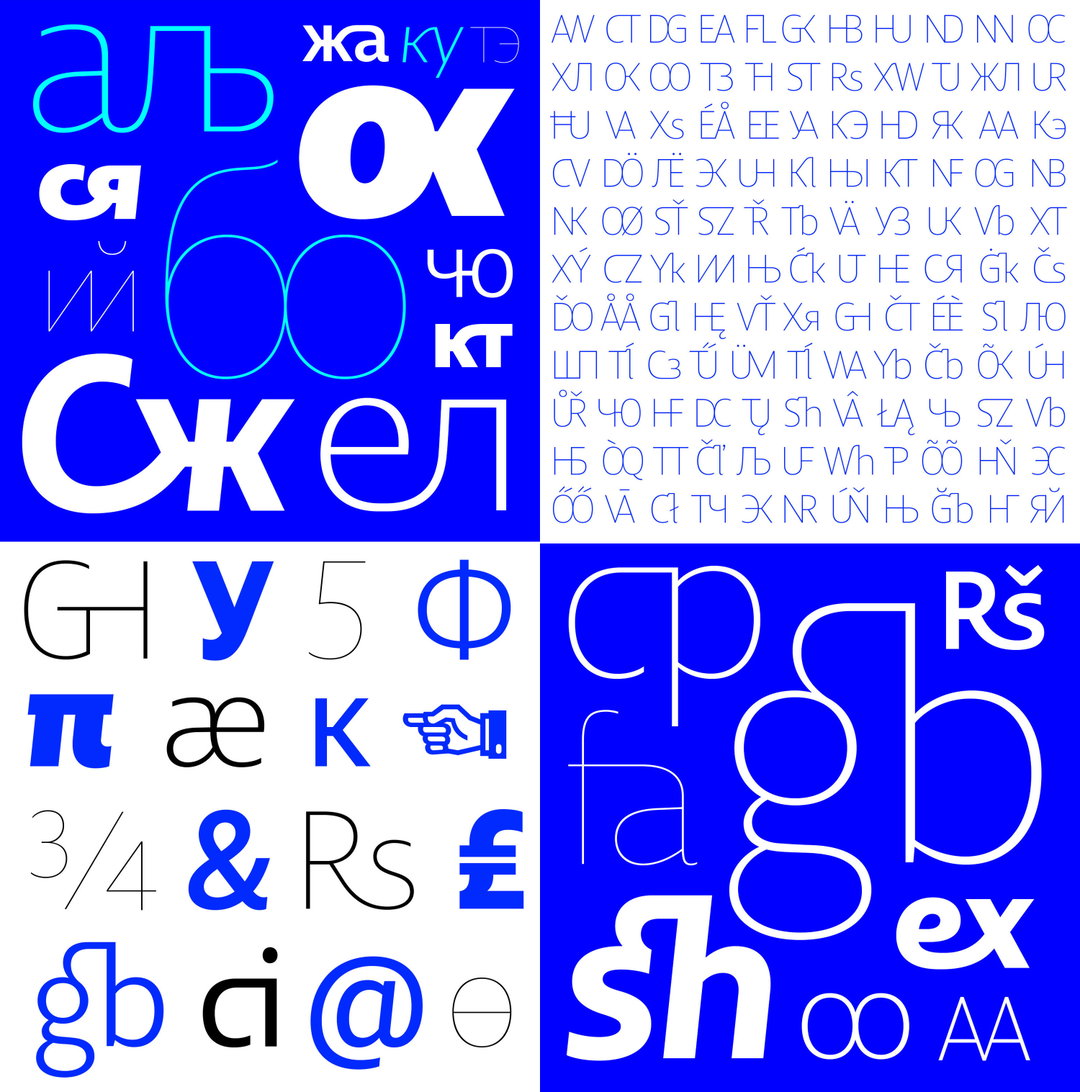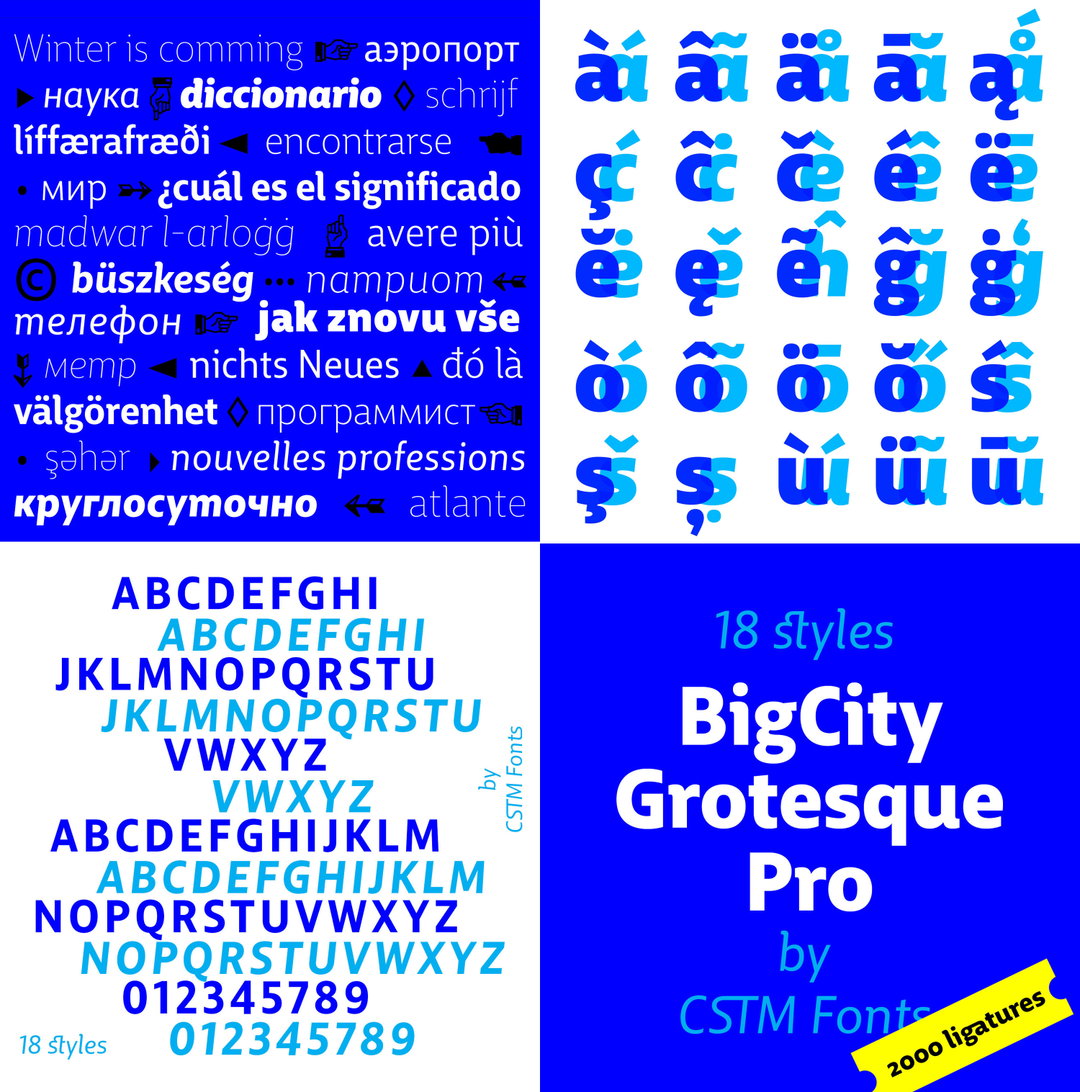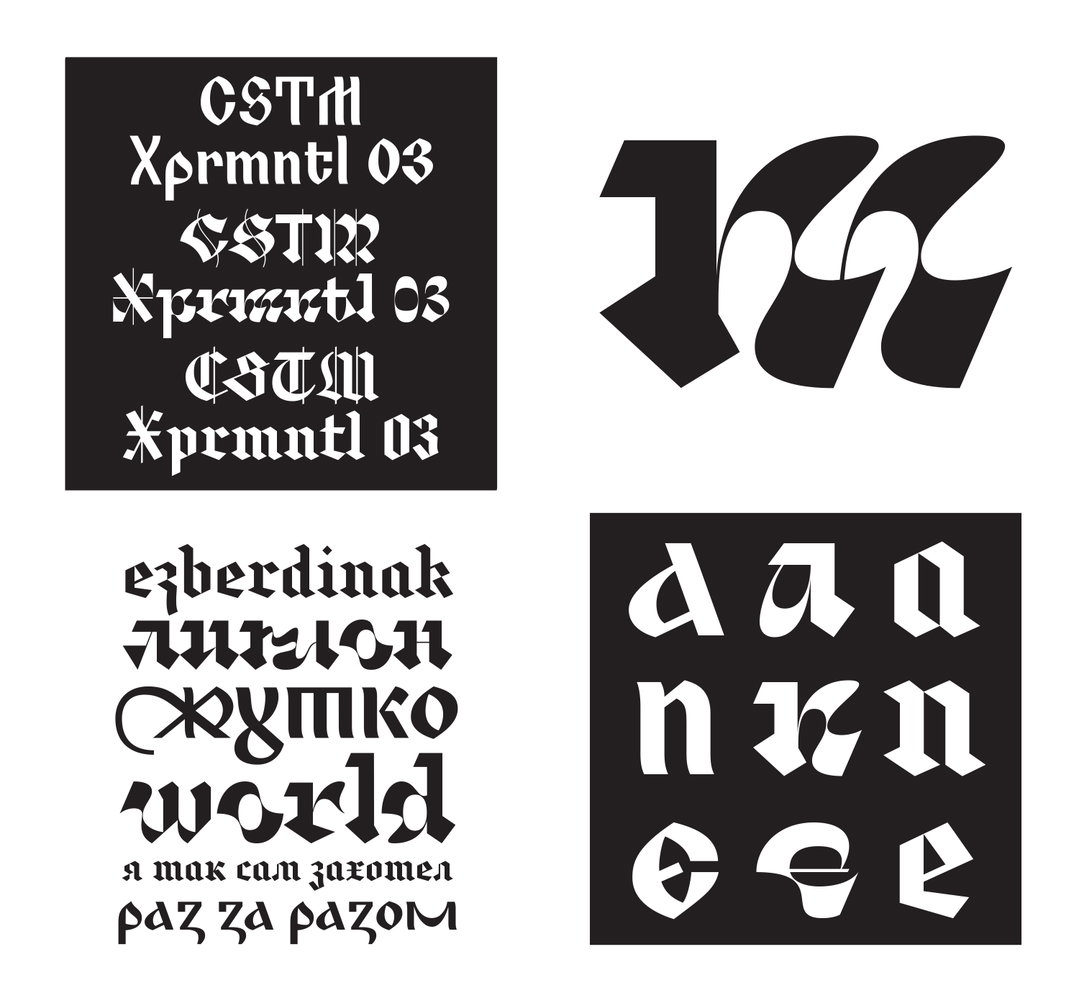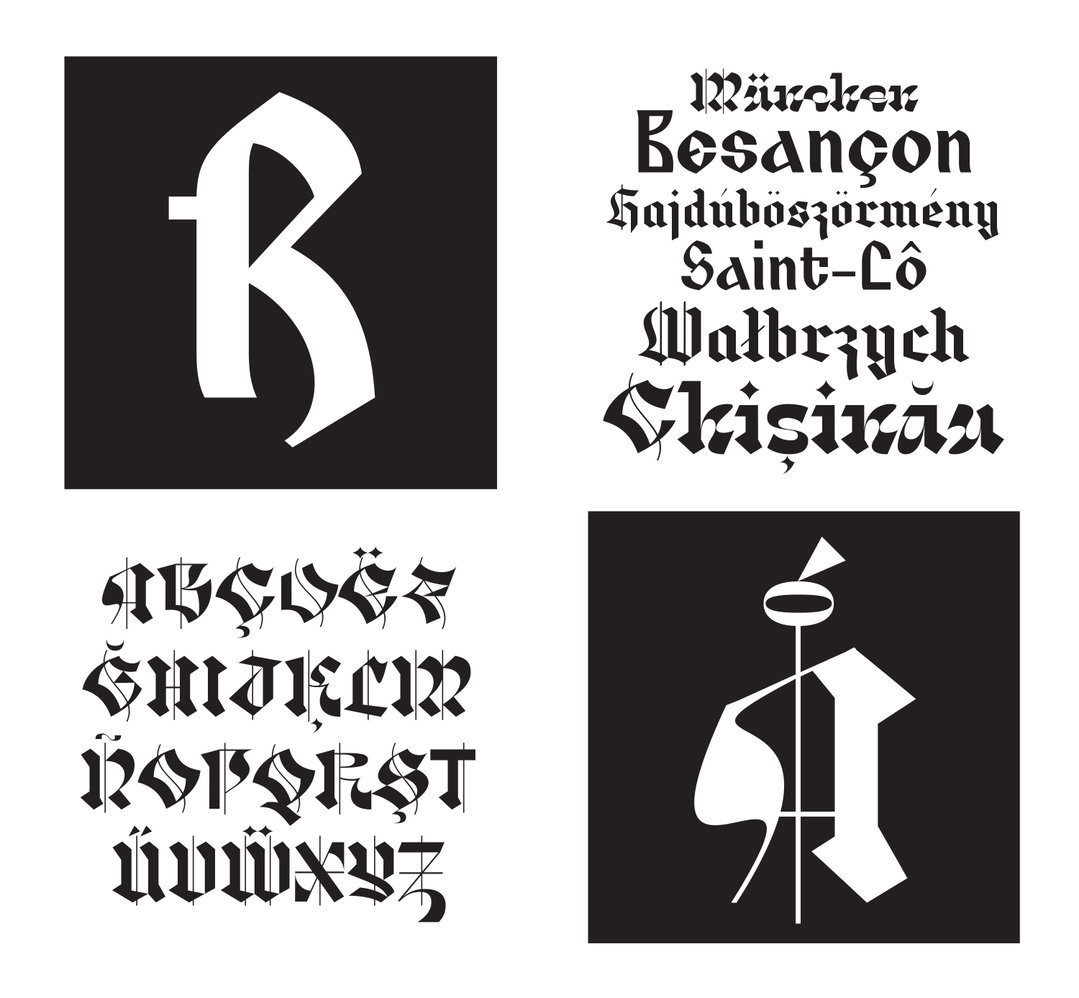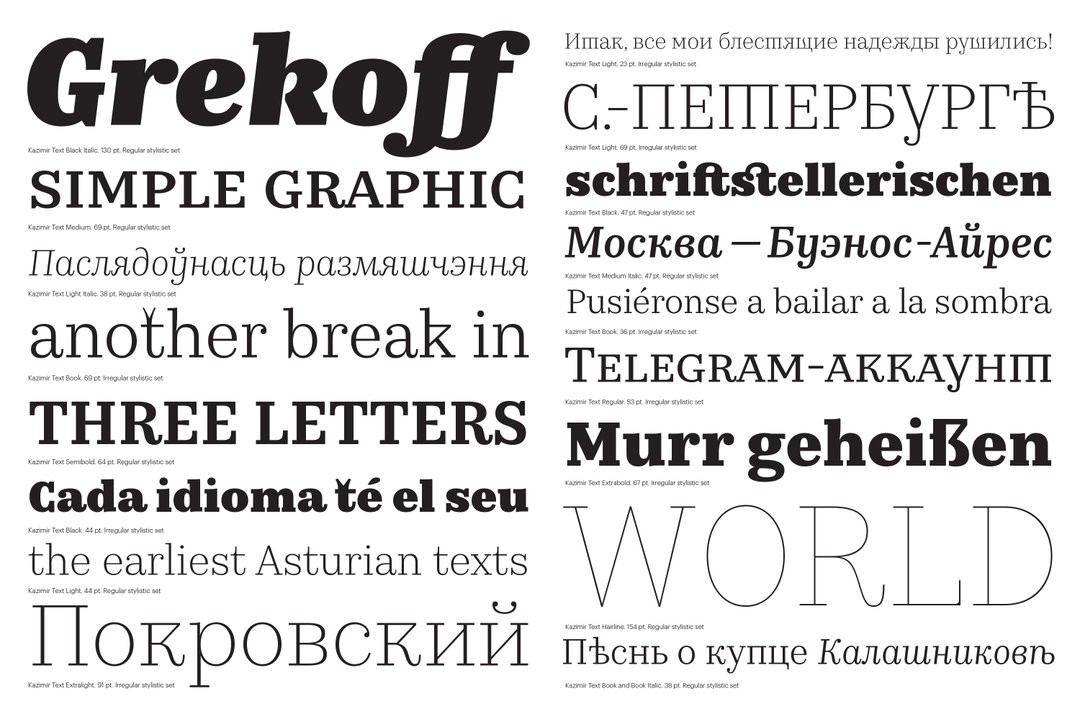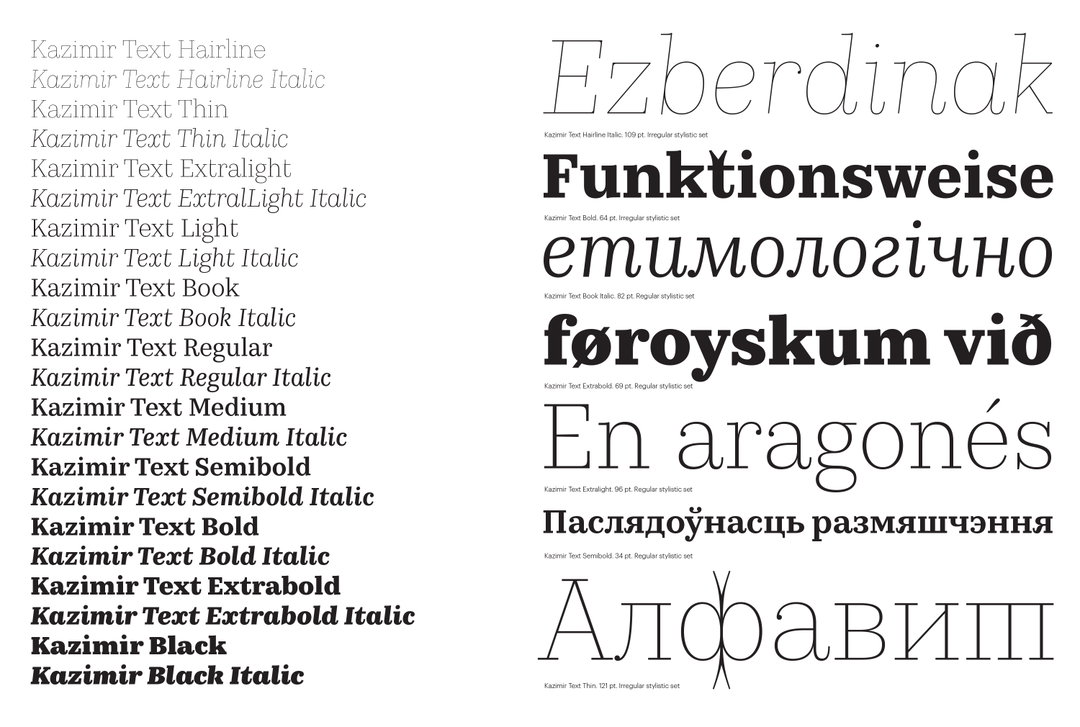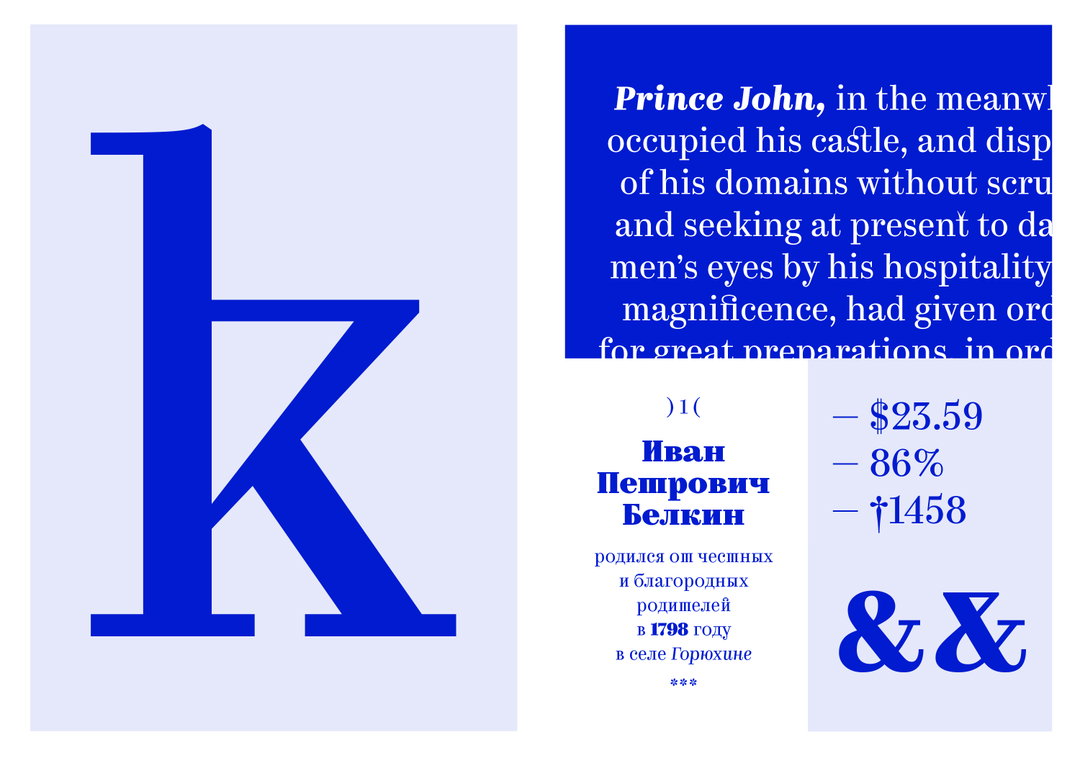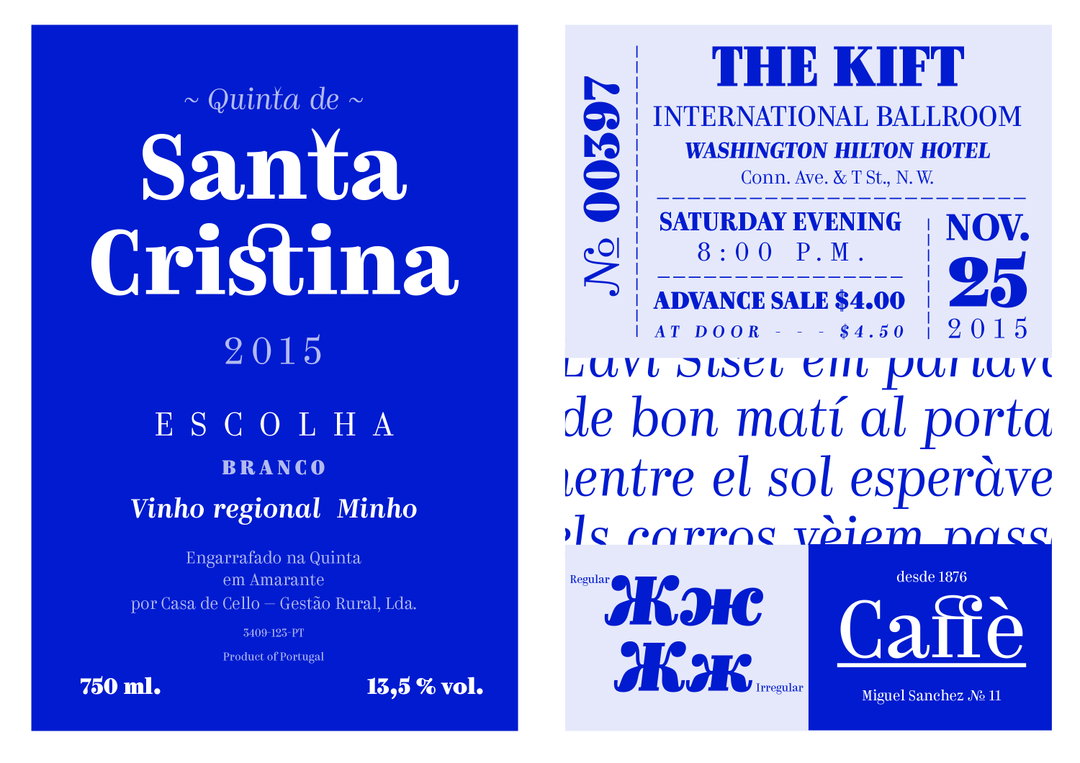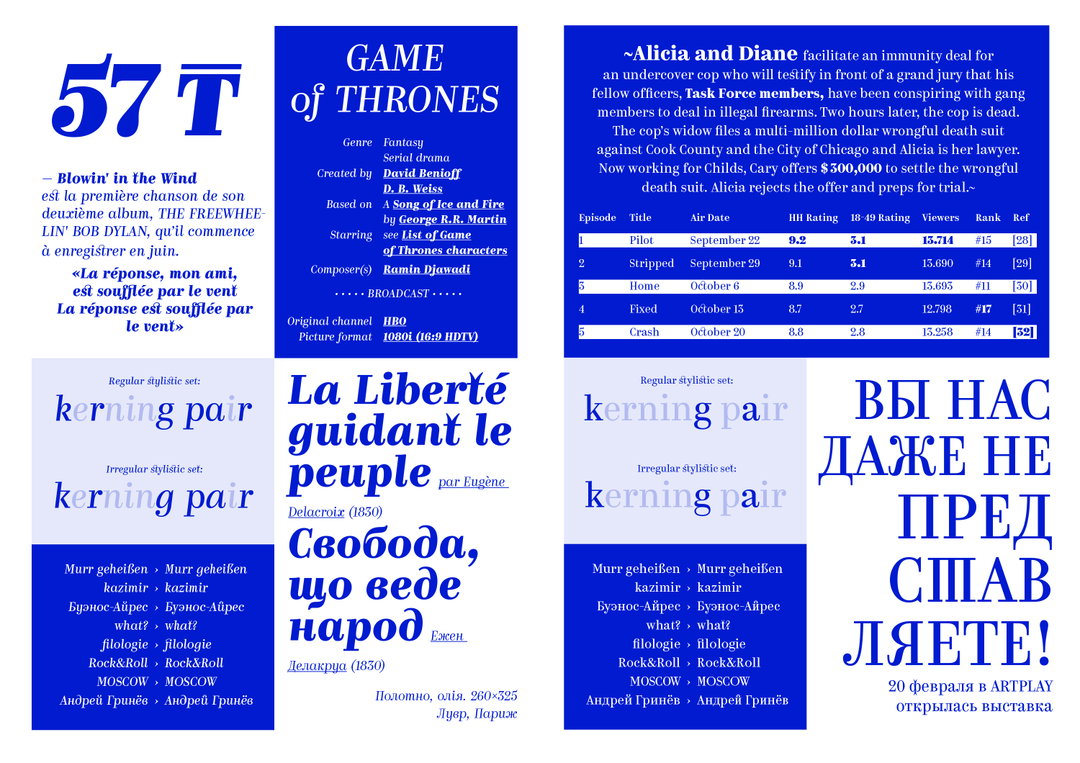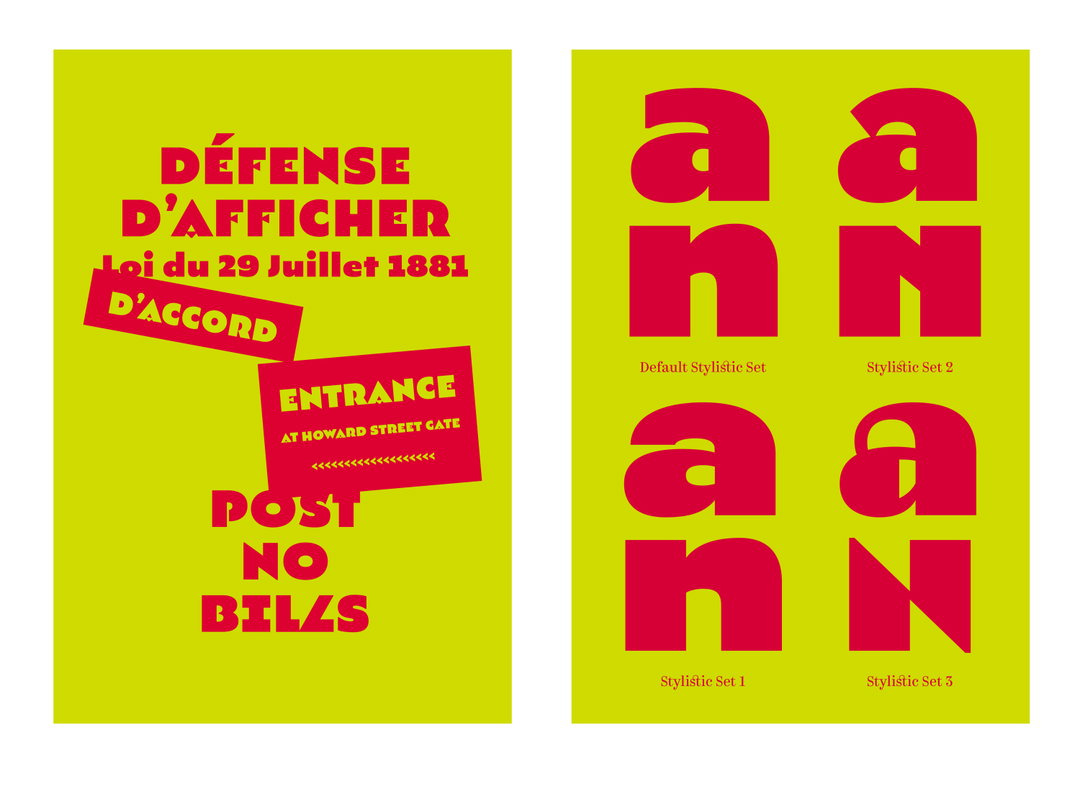
CSTM Fonts is making up for lost time with Cyrillic typefaces
The pair is creating unique fonts used for everything from news to way finding.
Yury Ostromentsky and Ilya Ruderman were in a unique position when creating their type foundry in Russia, and that was because they were pretty much the only people doing it.
“It was a rather neglected area of design back then in Russia, with just a couple of enthusiasts in the field,” Ilya tells It’s Nice That. “It was quite challenging to even find the information you needed, or a person who could help.”
Unlike the Latin alphabet, Russia wasn’t blessed with a plethora of type choices. “In the Soviet Union we had roughly 36 typefaces — with all the rest happily spent on our state’s military purposes,” says Yury. “Therefore we were left with nothing more than one typeface for newspapers, one for magazines etc. We all know too well that now and then a person needs something other than that: like some sex, once in while — and a bit of rock’n’roll, occasionally. All things nice, you know.”
The pair met whilst studying at Moscow State University of the Printing Arts, and were united by an interest in type that was ignited by their tutelage from Alexander Tarbeev – to whom they are both incredibly grateful to this day.
Apart from Tarbeev, there were very few people trained in creating Cyrillic typefaces, which led the pair to take on the burden themselves. “We finally had to admit the fact that there was literally no one but us that could create this CSTM Fonts foundry – so, yet again Ilya and me had to do everything by ourselves,” says Yury.
Having both gone on to do different things after university (Ilya in art direction and Yury in publishing), it was a return to what they loved, and was something they worked day and night to make happen.
With so little having been done in the field before them, we ask where there are gaps to be filled. “They are literally everywhere,” replies Ilya. “In fact, whatever you do in Cyrillic will most likely be a new thing. While the Latin market is very rich and competitive, the Cyrillic market is new and scarce — thus enabling you to express yourself. The variety of fonts is a hundred times less, which means we all still have a lot of things to do!”
At the moment Ilya is based in Barcelona, whilst Yury is still in Moscow, however, they have not let this affect their creative process and continue to work collaboratively. “Each project is different but in most cases we work together, offering a bunch of independent options in a sketching stage,” says Ilya. “We then continue working together in production, helping and checking up on each other.”
Their practice at the moment is admittedly varied, with most of their time spent on custom typefaces, as well as a small retail collection. The eclectic mix of fonts they have produced is demonstrated by the fact they both have completely different ideas as to which are their favourites. For instance one of Yury’s favourites is CSTM Xprmntl 01-03: “Those are experimental fonts. Yet, rather quirky ones. I intentionally assign a weird, seemingly unnecessary task to myself, that then leads the experiment to its final results all by itself.”
Ilya, on the other hand, speaks of one of their best-known typefaces, Kazimir: “It’s some sort of re-thinking of the Russian typography from the early 20th Century, with a stylistic collection of errors and flaws one can find in those materials.”
Their typefaces have found a variety of functions across many industries, creating customs for organisations as large as RIA Novosti (Russia’s former state news agency), as well as a custom wayfinding project for Moscow City District.
What was ultimately their passion as students has now been converted into a full-time job, and with their client list continuing to grow and their type selling platform in place, it is all going rather well. This is not by accident though, and just like in the past, they are still seemingly devoting their life to the craft:
“We design our fonts with pens on paper, with pencils on napkins, or using our computers,” says Yury. “We are doing type in the mornings and at nights, before breakfast and when the party’s over, on the road and on sick leave, at work and on the train...”